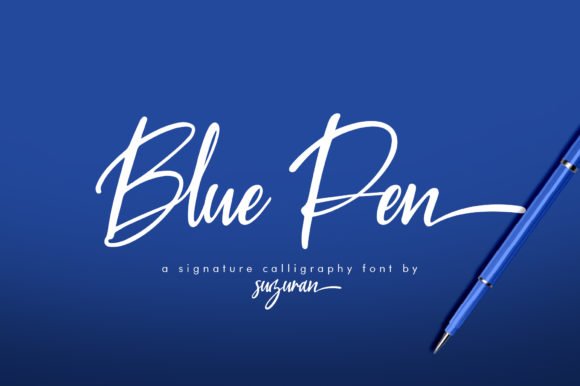
The Perfect Blend of Fun and Elegance: Introducing Blue Pen Script Font
As a designer, have you ever found yourself stuck in a creative rut, searching for the perfect font to elevate your next project? I know I have! Sometimes, all it takes is a fresh perspective and a unique font to spark inspiration. That’s exactly what the Blue Pen Script Font does – it brings a touch of whimsy and sophistication to any design.
This delightful script font is perfect for creating custom logos, eye-catching posters, and even wedding invitations that leave a lasting impression. With its playful and elegant feel, the Blue Pen Script Font is a valuable addition to any designer’s toolkit. Plus, it comes with a bonus font, Night in Kansas, making it an absolute steal. Whether you’re a seasoned pro or just starting out, the Blue Pen Script Font is sure to bring a smile to your face and a new level of creativity to your work.
Blue Pen Script Font Key Features
- Font Style: Script, Cursive
- Unique Characteristics: Includes swashes, ligatures, and alternate characters for a more natural handwriting feel
Designer Review: Blue Pen Script Font
Overall, I found the Blue Pen Script Font to be a delightful and charming addition to any design project. ✨ Here are a few things that stood out to me:
- Beautiful, handwritten feel that adds a touch of elegance and sophistication to any text.
- Highly versatile, suitable for a wide range of applications from logos and branding to invitations and social media graphics.
- Great for adding a personal touch to digital or print materials, making it perfect for creatives looking to add some personality to their work.
- May not be suitable for large blocks of text due to its cursive nature, which can make it difficult to read.
- Some characters may not be fully compatible with certain fonts or font sizes, which can cause issues with layout and formatting.
- Not ideal for situations where a clear, legible font is necessary, such as in technical or instructional materials.
Overall, I would highly recommend the Blue Pen Script Font for any design project where a touch of whimsy and personality is desired. While it may not be suitable for every situation, it’s a great addition to any designer’s toolkit and can add a unique and beautiful touch to any design.
To get the most out of the Blue Pen Script Font, use it sparingly and effectively. This font is perfect for adding a touch of elegance and sophistication to your designs. Use it for titles, headings, and short paragraphs.
The Blue Pen Script Font is commonly used in:
- Branding and logo designs
- Event promotions and advertising
- Editorial and publishing designs
Alternatives to Blue Pen Script Font for Designers
Carolyna Pro is a modern script font designed for luxury brands and high-end packaging. It’s perfect for creating elegant and sophisticated designs. This font is ideal for use in branding, advertising, and packaging design.
Carolyna Pro is similar to Blue Pen Script Font in its elegant and refined feel, but it has a more modern and sleek appearance. It’s a great alternative for designers who want a high-end look without the vintage feel of Blue Pen Script Font.
Great Vibes is a beautiful script font designed for creative and artistic projects. It’s perfect for use in invitations, wedding stationery, and other special occasions. This font is ideal for designers who want a playful and whimsical feel.
Great Vibes is different from Blue Pen Script Font in its more playful and energetic feel. While Blue Pen Script Font is elegant and refined, Great Vibes is fun and carefree. Great Vibes is a great alternative for designers who want to add a touch of personality to their designs.
Alex Brush is a elegant script font designed for use in branding, advertising, and packaging design. It’s perfect for creating sophisticated and refined designs. This font is ideal for designers who want a classic and timeless look.
Alex Brush is similar to Blue Pen Script Font in its elegant and refined feel, but it has a more classic and timeless appearance. It’s a great alternative for designers who want a sophisticated look without the vintage feel of Blue Pen Script Font.